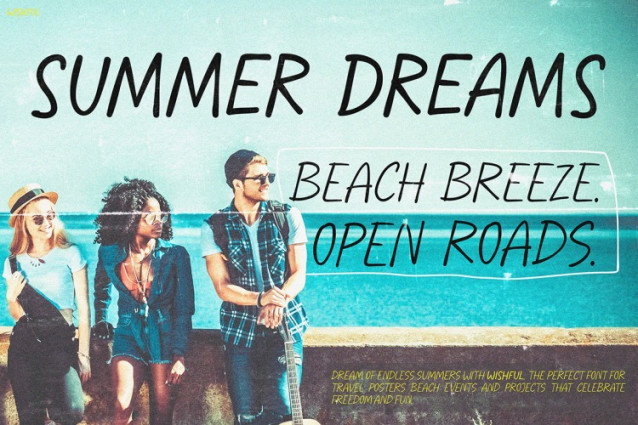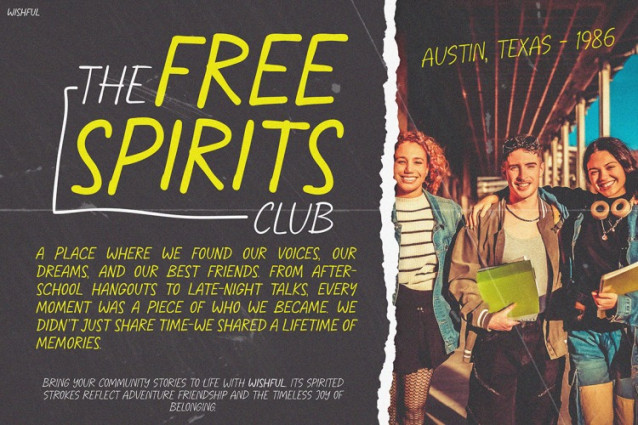
Wishful Font
Wishful Font is a charming and expressive script that brings warmth and beauty to your designs. From the very first glance, its smooth strokes and flowing curves capture the feeling of handwritten letters. Not only does it look elegant, but it also adds a personal and emotional touch. Therefore, it’s perfect for projects that need a creative and heartfelt feel. Whether you’re designing for a brand or a personal event, this font adds visual interest without feeling too formal.
In addition, the font’s clean structure ensures it remains legible while still feeling organic. Its natural rhythm helps your words come to life. As a result, your message stands out in a stylish and meaningful way. Rather than using a standard font, you can let Handwriting Font Wishful bring a unique character to your work, making it a visual treat that adds instant character and emotion to any creative work.